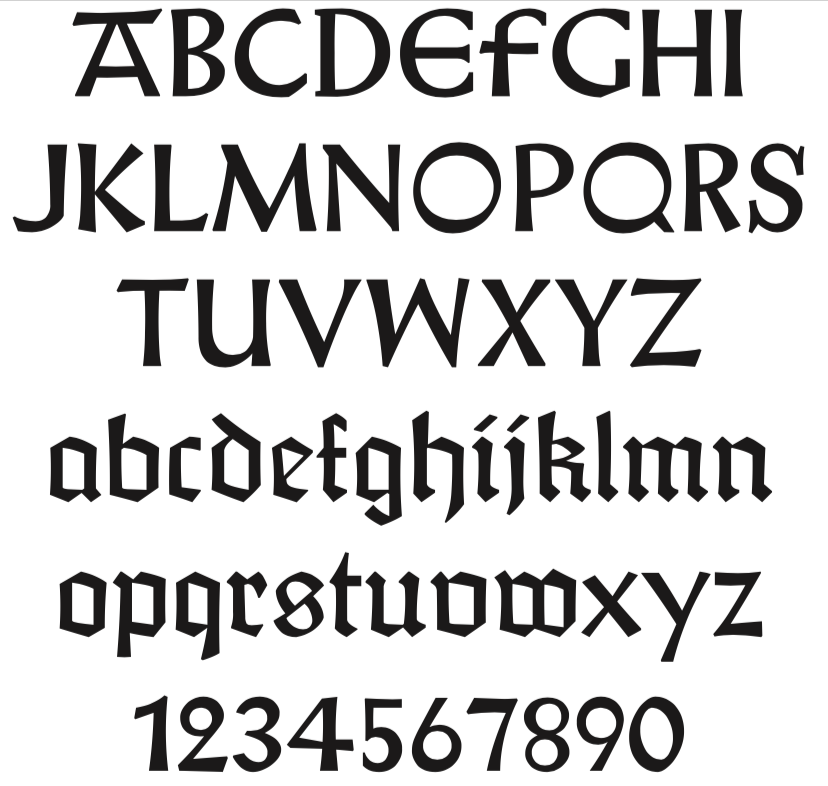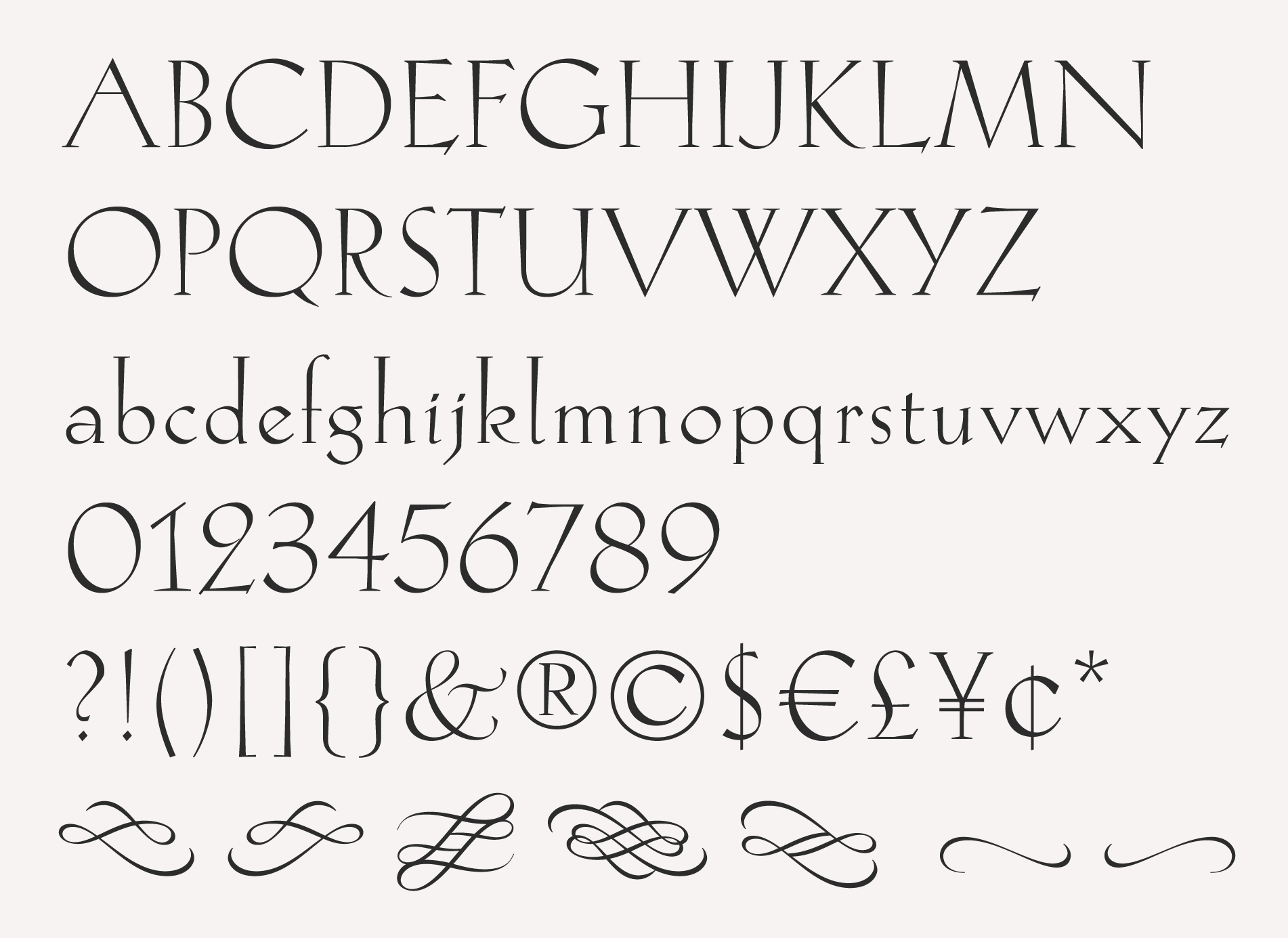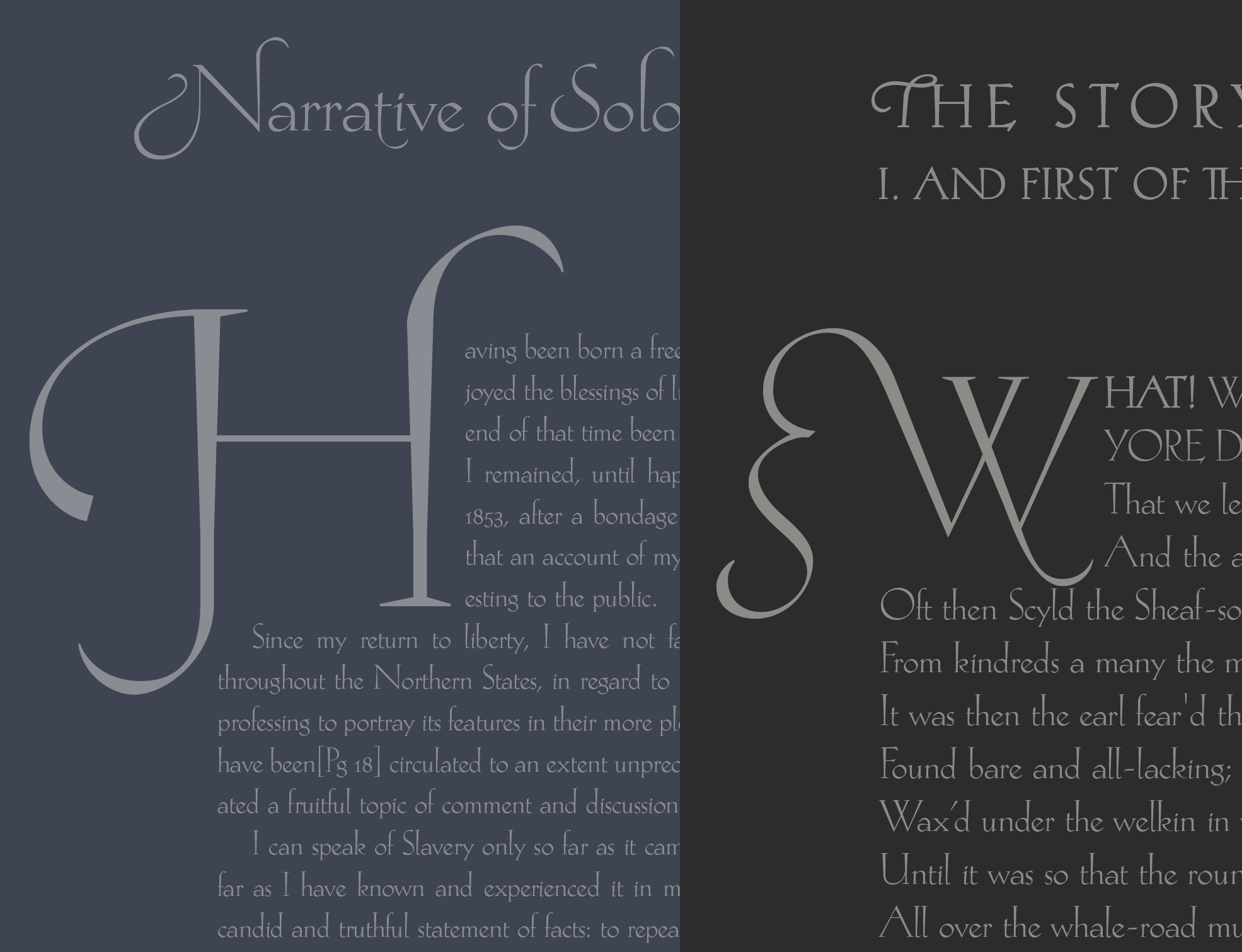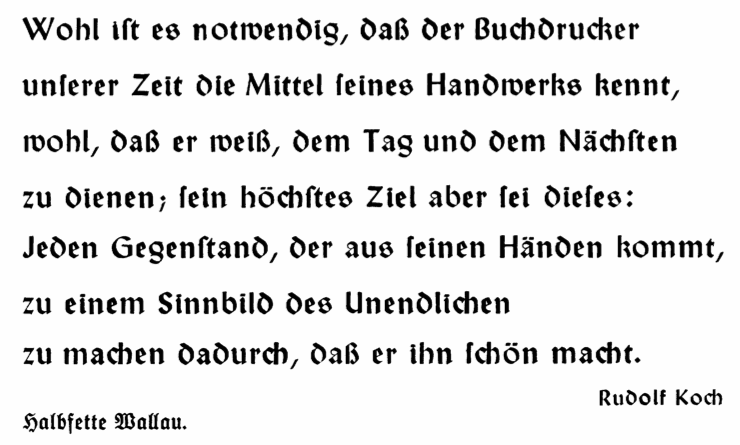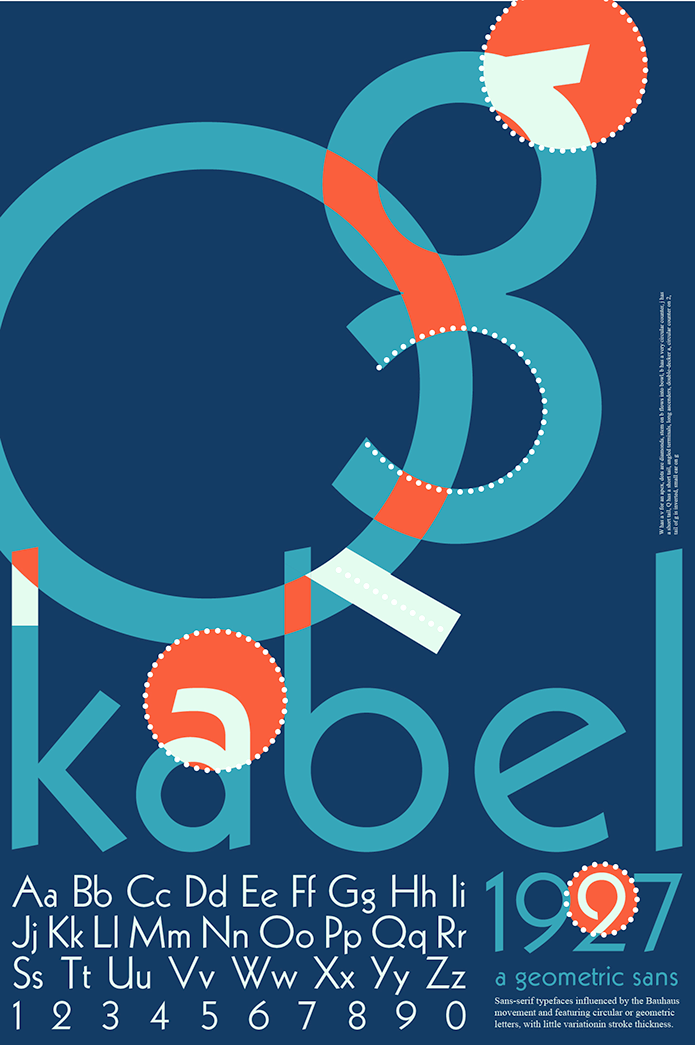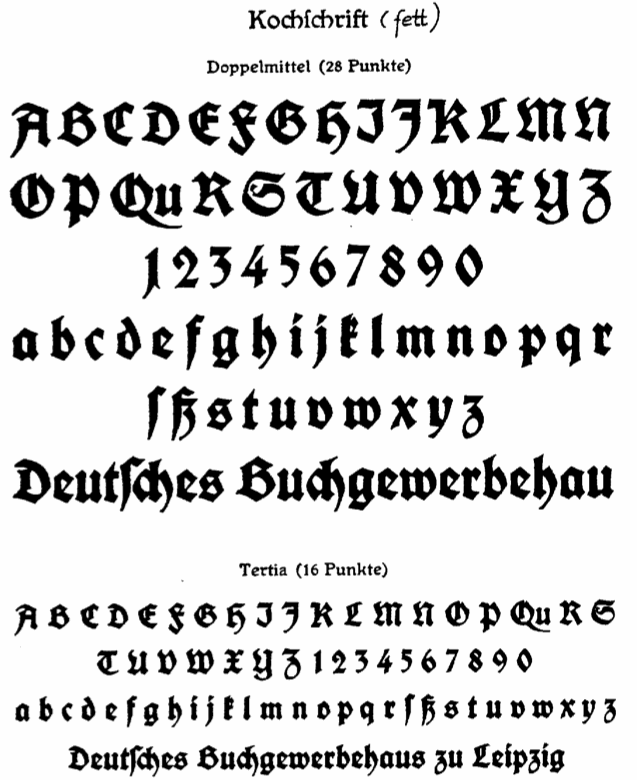
Rudolf Koch
Great German type designer (b. Nürnberg, 1876; d. Frankfurt, 1934) who worked mainly at the Klingspor foundry. He founded the Offenbach Werkstatt in 1921.
Many of his typefaces can be classified as German expressionist. These include Kabel (a sans), and Neuland (an angular poster face). An early Nazi sympathizer and supporter, Koch's fonts were heavily used by the Nazi regime.
His typefaces, with notes on digitizations:
• Claudius (1931-1934, 1937, D. Stempel AG). His son Paul Koch followed Rudolf's instructions to make one weight in 1931-1934. Klingspor completed it in 1937. Delbanco (as DS-Claudius) and Klaus Burkhardt (1991) digitized it. Based on the latter, Manfred Klein made ClaudiusImperator (2001). Dieter Steffmann made Claudius, ClaudiusAlternate, and ClaudiusHeadline in 2003. Ralph M. Unger published Claudius in 2010.
• Deutsche Anzeigenschrift (1913-1914), Deutsche Anzeigenschrift schmal (1916-1923, D. Stempel AG). revivals include SchmaleAnzeigenschrift (2002) and SchmaleAnzeigenschriftZier (2002) by Dieter Steffmann, and Schmale Anzeigenfraktur (2009) by Ralph Unger. Later weights by Koch: Deutsche Anzeigenschrift eng (1923) , Deutsche Anzeigenschrift breit (1923, D. Stempel AG) , Deutsche Anzeigen. schmalhf. (1934, D. Stempel AG).
• Deutsche Schrift (1908-1921), consisting of Deutsche Schrift schmal (1913, Gebr. Klingspor), Deutsche Schrift fett (1910, Gebr. Klingspor), Deutsche Schrift mager (1918, Gebr. Klingspor) and Deutsche Schrift halbfett (1912, Gebr. Klingspor). Also known as Koch Fraktur. Revived by Gerhard Helzel as KochFrakturSchmaleHalbfette (2000), by Christian Richter as Rudolf Koch (2003), and by Delbanco as DS Koch Fraktur. It was a popular family, known in England as Oxford. For comparison, here is a phototype version. Deutsche Schrift fett, aka Fette Deutsche Schrift, was revived by Dieter Steffmann in 2002 (as Fette Deutsche Schrift) and by Alter Littera in 2012 as Deutsche Schrift.
• Deutsche Schrägschrift (1912, Gebr. Klingspor).
• Deutsche Werkschrift (1934, D. Stempel AG) and Deutsche Werkschrift hablfett (1934, D. Stempel AG): This is really the "mager" version of Deutsche Anzeigenschrift. Delbanco revived it digitally as DS Deutsche Werkschrift.
• Deutsche Zierschrift (1919-1921, Gebr. Klingspor). Revived as Dutesche Zierschrift (2002) and Zierinitialen> (2002) by Dieter Steffmann. See also Delbanco's DS Deutsche Zierschrift.
• Frühling (1913-1917, Gebr. Klingspor). A blackletter that seems to have been executed with a shaky hand---it is definitely one of Koch's weakest and ugliest designs. Incredibly, the revival gang was still eager to spring into action: it was revived and interpreted by Frantisek Storm in Monarchia. See also Delbanco's DS Frühling. For another revival, see Next Stringtime by Manfred Klein (2003). Frühling is sometimes called Kartenschrift.
• Geschriebene Initialen zur Grotesk (1930, Gebr. Klingspor).
• Grotesk Initialen (1933, Gebr. Klingspor). Paul Hayden Duensing made Koch Initials (metal).
• Holla (1932, Gebr. Klingspor). Digitized by Dieter Steffmann in 2001.
• Jessen Schrift (1924-1930) is a hybrid of gothic (blackletter) minuscules and roman capitals (including the characteristic Basque capital A) designed and cut without preliminary drawings in Offenbach am Main by Rudolf Koch for The Four Gospels, which was printed at the Klingspor press in 1926 and published by Koch himself. Formerly named Bibel-Gotisch, the type was developed between 1924 and 1929 as Peter Jessen Schrift and released as Jessen in several sizes by the Klingspor foundry in 1930. See DS-Jessen-Schrift (1998, Christian Spremberg), Peter Jessen Schrift (Delbanco), Jessica Plus (2002) and JessicaSerif (2003) by Manfred Klein, Peter Jessen Schrift Pro (Softmaker, 2016), and Jessen Schrift (2004, Ralph M. Unger). Jessen Mittel 14 and Jessen Cicero 12 were developed by Alexis Faudot and Rafael Ribas in 2016 during an ANRT workshop in Valence, France.
• Kabel (1927, Gebr. Klingspor), Klingspor's competing design for Paul Renner's Futura. The most famous digitization of this Koch Sans family is by Victor Caruso in ITC Kabel (1976), and with its exaggerated x-height, much larger than the original, it is a poor bastard. The modern Bitstream version is called Geometric 231. Softmaker calls it Koblenz. Poster by Jorge Martinez. At Linotype, Marc Schütz designed the large family Neue Kabel (2016) that revives Kabel by making it more consistent. This version overshadows all previous digital versions or extensions of Kabel. Dates of the various weights: Kabel Kursiv (1929, Gebr. Klingspor), Kabel groß (1928, Gebr. Klingspor), Kabel Kursiv groß (1930, Gebr. Klingspor), Norm Kabel (1930, Gebr. Klingspor): LinotypeLibrary, Kabel fett (1929, Gebr. Klingspor): LinotypeLibrary, Kabel schmal (1930, Gebr. Klingspor), Kabel schmalhalbfett (1929, Gebr. Klingspor).
• Koch Antiqua (or: Locarno) (1920-1922, Gebr. Klingspor). It was sold by Continental Type in the United States as Eve. This gorgeous tall-legged and flared typeface was designed in 1917, but cut in 1922. Koch Kursiv (1923, Gebr. Klingspor) is the Kursiv version of Koch Antiqua. See also Koch Kursiv groß (1929, Gebr. Klingspor) and Koch Antiqua fett (1926, Gebr. Klingspor: some give the date 1923-1924). Rivoli is a similar metal typeface. Digital versions include Rudolf Antiqua (2018, Now Type), Eva Antiqua, Eva SG (Spiece Graphics), Eva (Monotype), AIKochAntiqua (a multiple master font by Randall Jones for Alphabets Inc), Astaire Pro (2004, Bergslund Design, or Hackberry), Koch Altschrift (2004, Moorstation crew), Locarno (1985, Alan Meeks for Letraset), Kuenstler 165 (Bitstream), Koch Antiqua (Adobe, Linotype), Evadare (David Nalle), Hellen (2019, Genilson Lima Santos).
• Koch Kurrent (1933, Gebr. Klingspor). This is Koch's version of school scripts, a variant of his earlier proposal, Offenbacher Schrift (1927). It was only cut in 1935. See Rudolf Koch Kurrent at Delbanco .
• Koch Schrift (1909) is a Schwabacher first known as Neudeutsch and later as Koch Schrift. It was used by the Deutsche Reichsbahn, ca. 1930. For a digital revival, see, e.g., Koch Schrift (1998-2021) by Ingo Zimmermann.